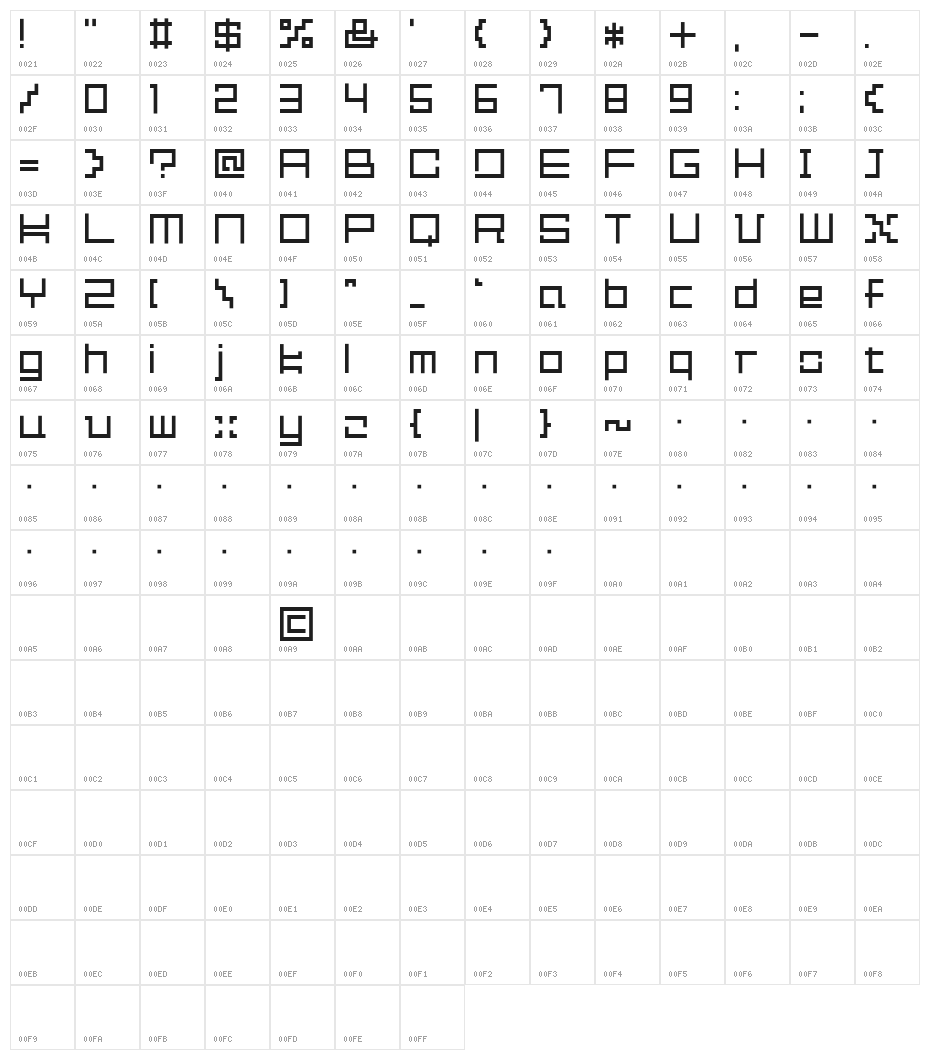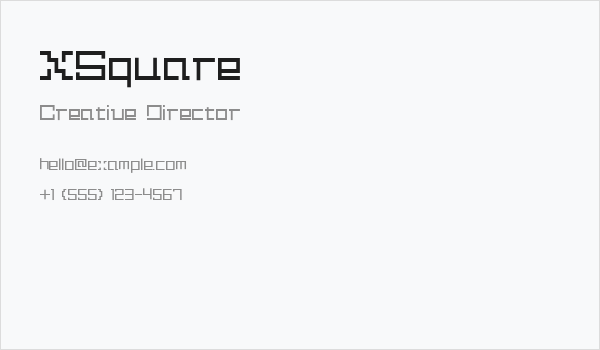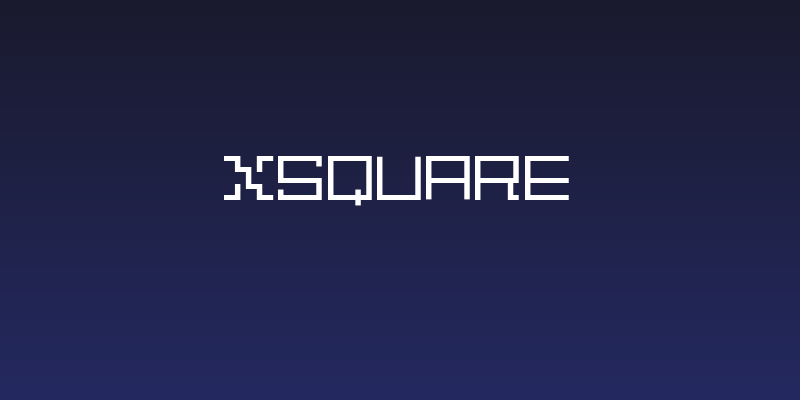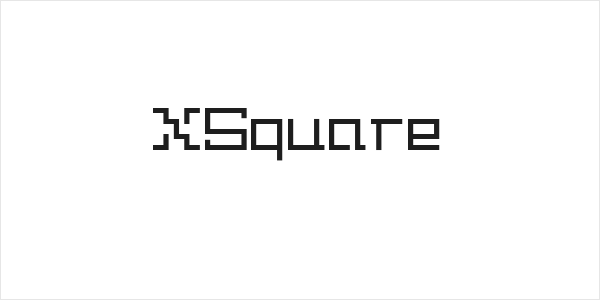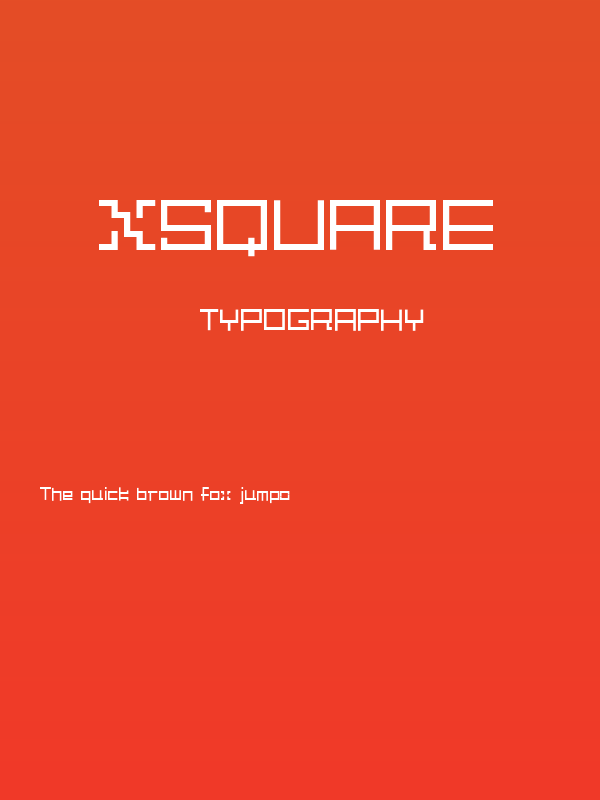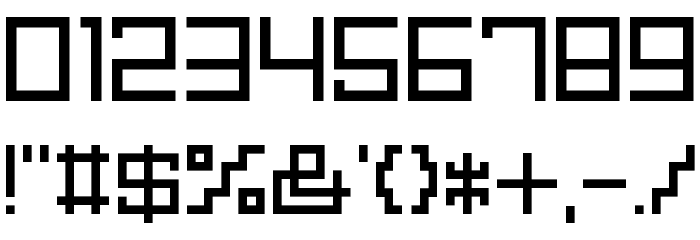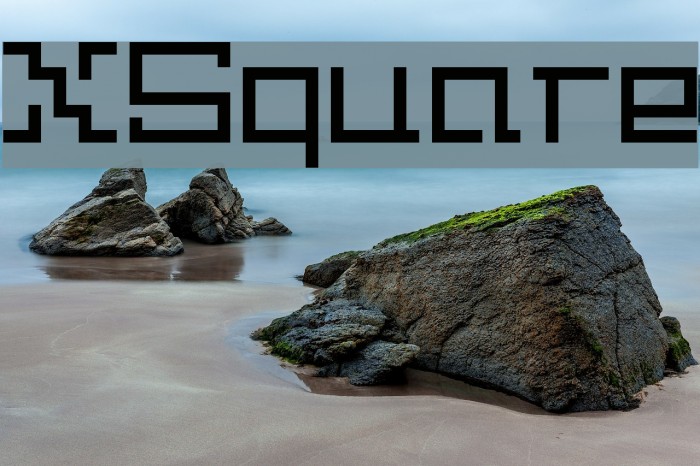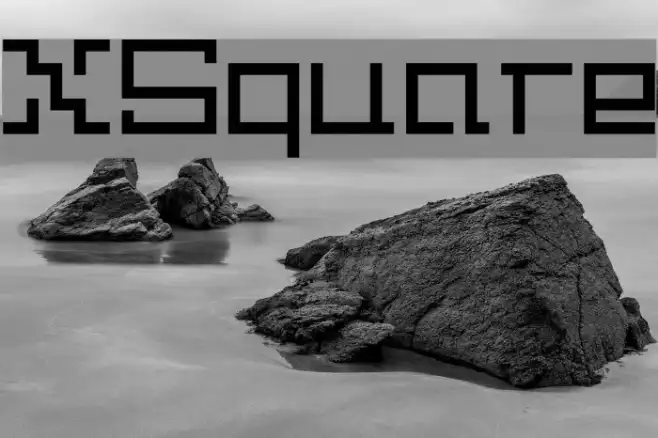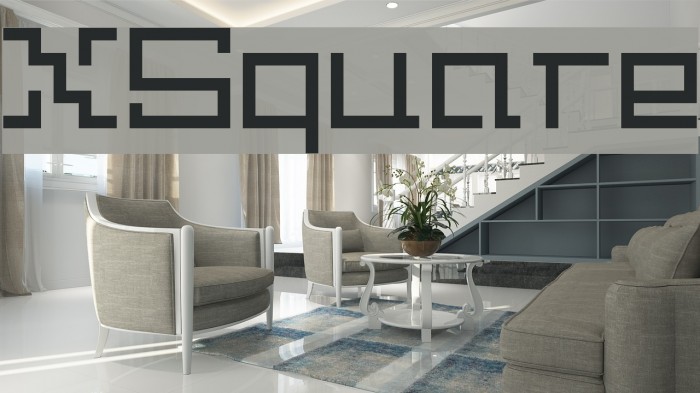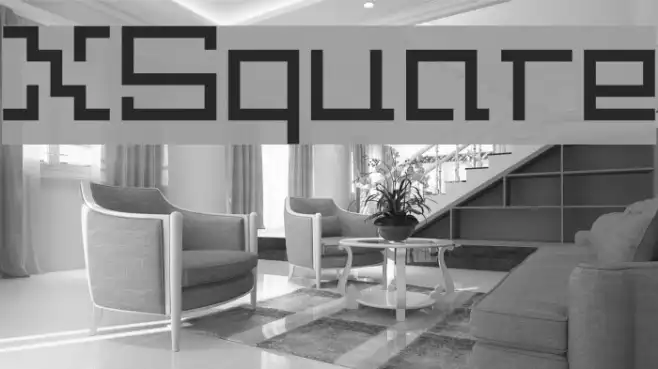
XSquare Font
XSquare Description
This font features a geometric and modular design, characterized by its square and blocky appearance. Each character is constructed with consistent line thickness, creating a uniform and cohesive look. The font's structure is reminiscent of digital or pixelated text, making it ideal for modern and tech-oriented designs. The uppercase and lowercase letters maintain a similar width, contributing to a balanced and orderly aesthetic. Numbers and special characters are designed with the same geometric precision, ensuring readability and visual harmony across all elements.
| Use Case | Logos, Headlines, Digital Interfaces |
| Proposed Projects | Ideal for tech branding, digital interfaces, video game graphics, and futuristic posters. |